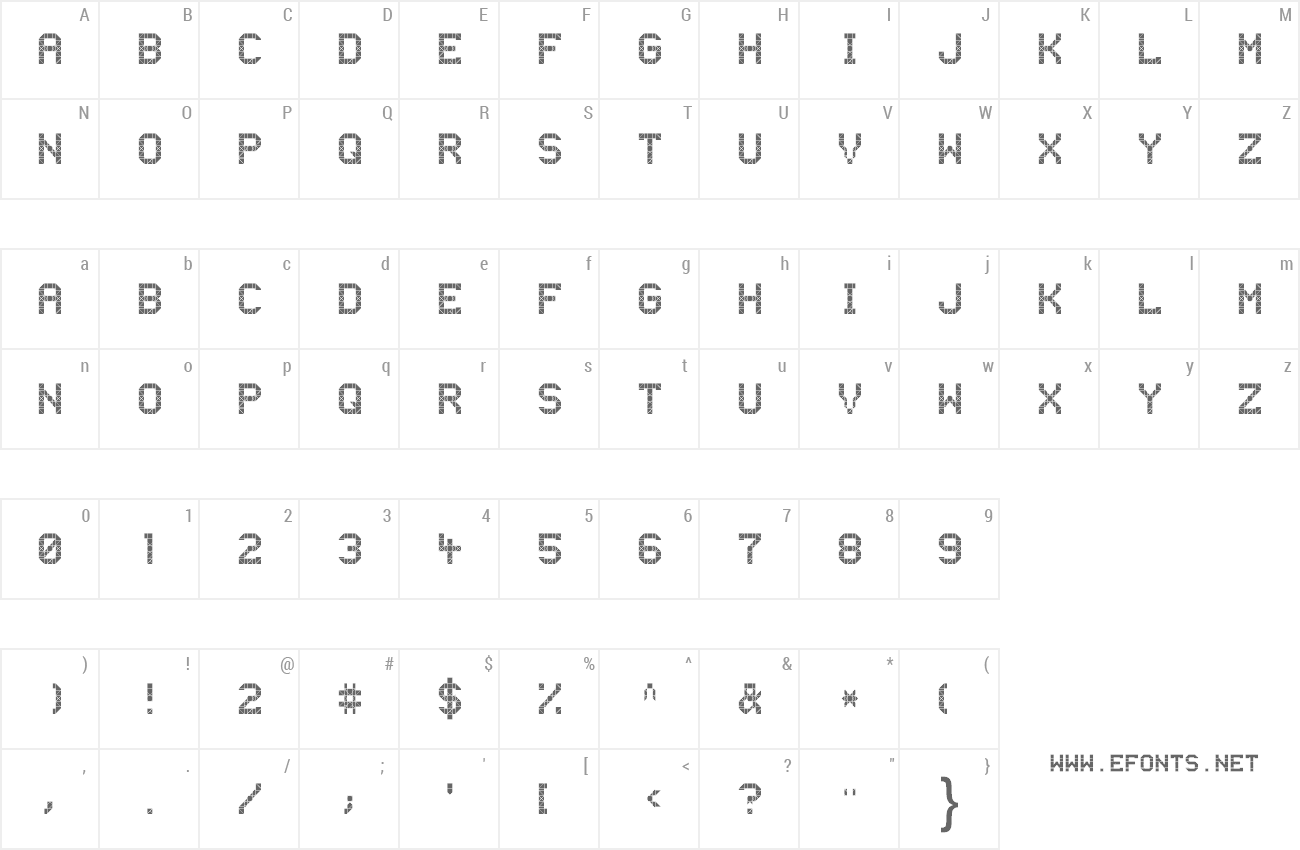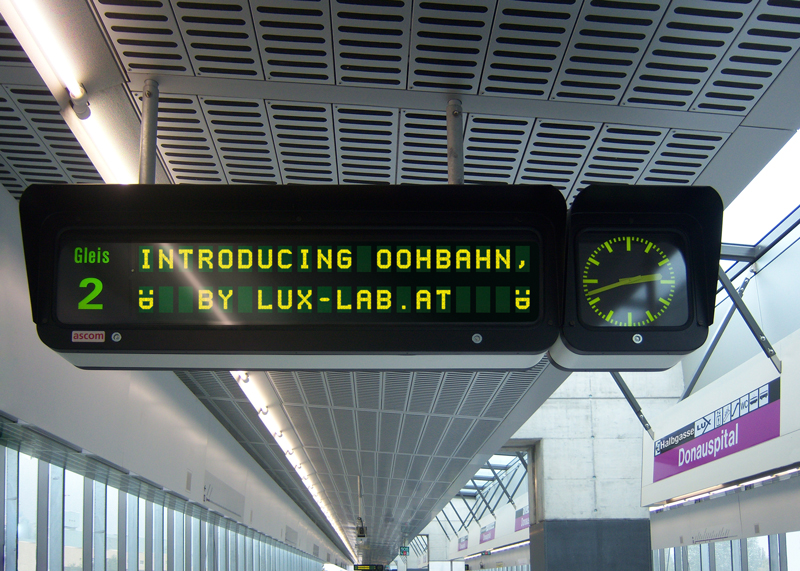
| Font name: | Ooh Bahn |
| Categories | Techno, LCD |
| Author: | Benjamin Posch |
| Note by Benjamin Posch | |
| oohbahn is a technical, monospaced typeface inspired by Vienna metro signage made by www.lux-lab.at in Vienna, Austria. Retro & futuristic. Enjoy! |